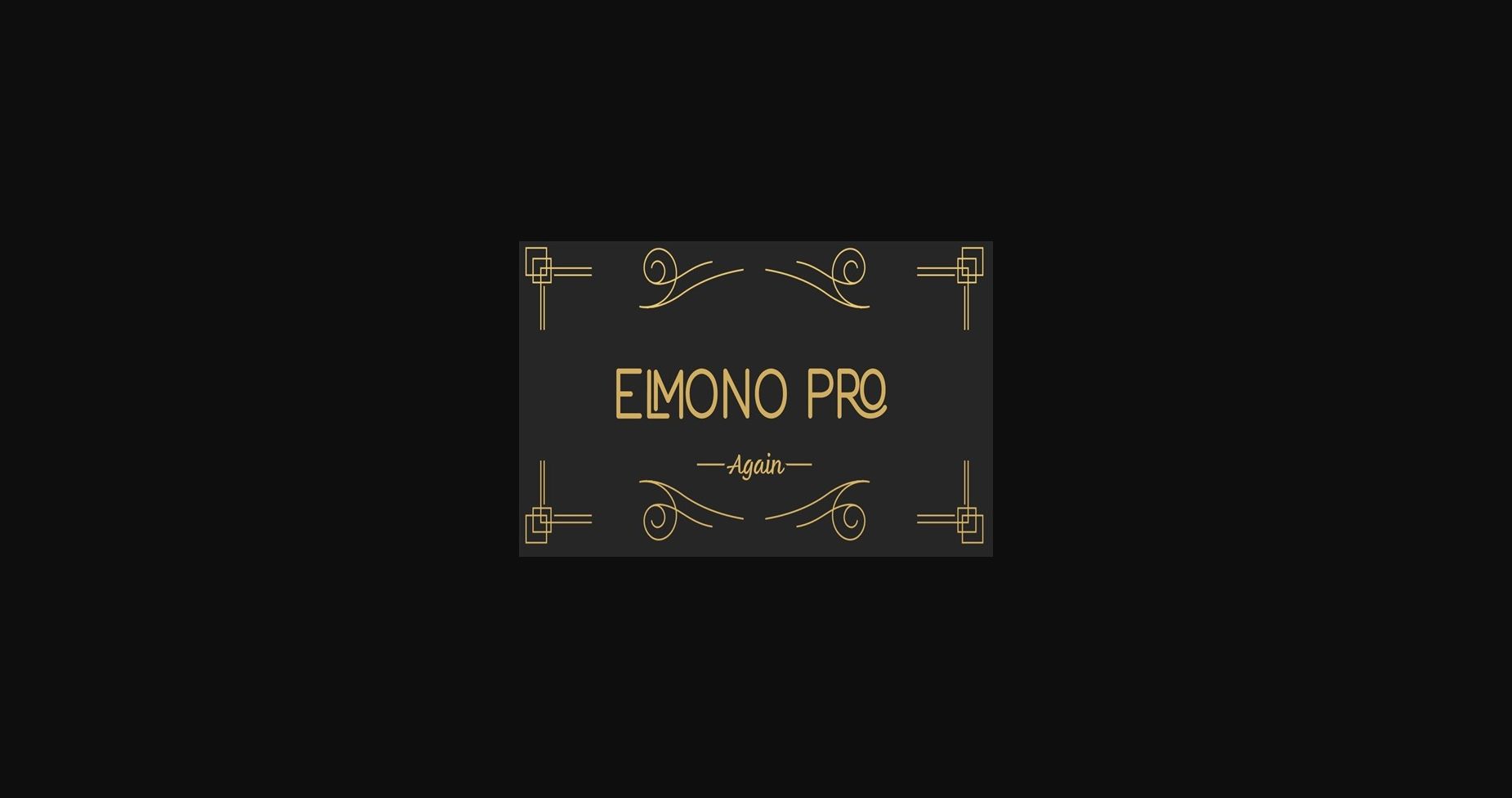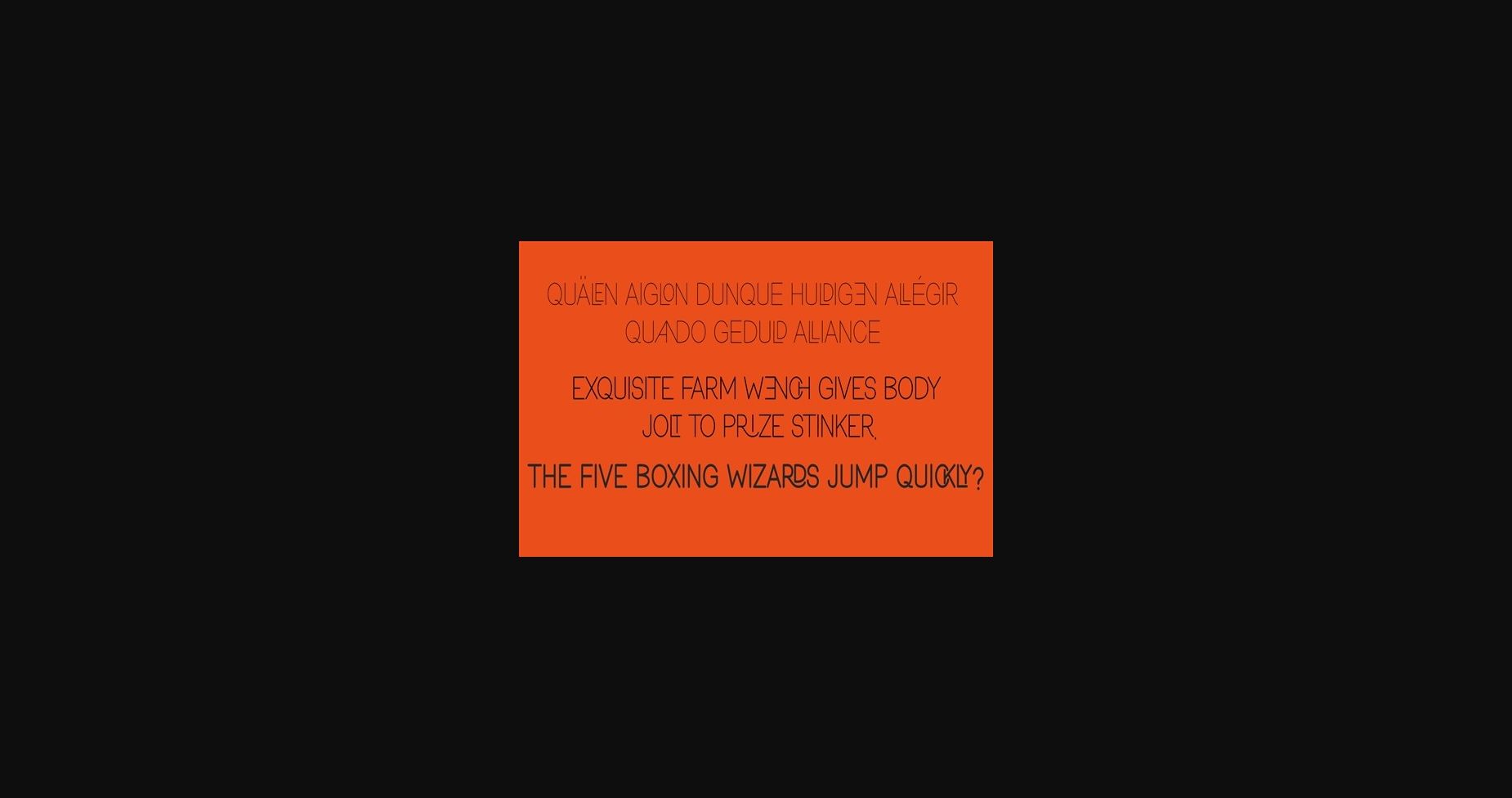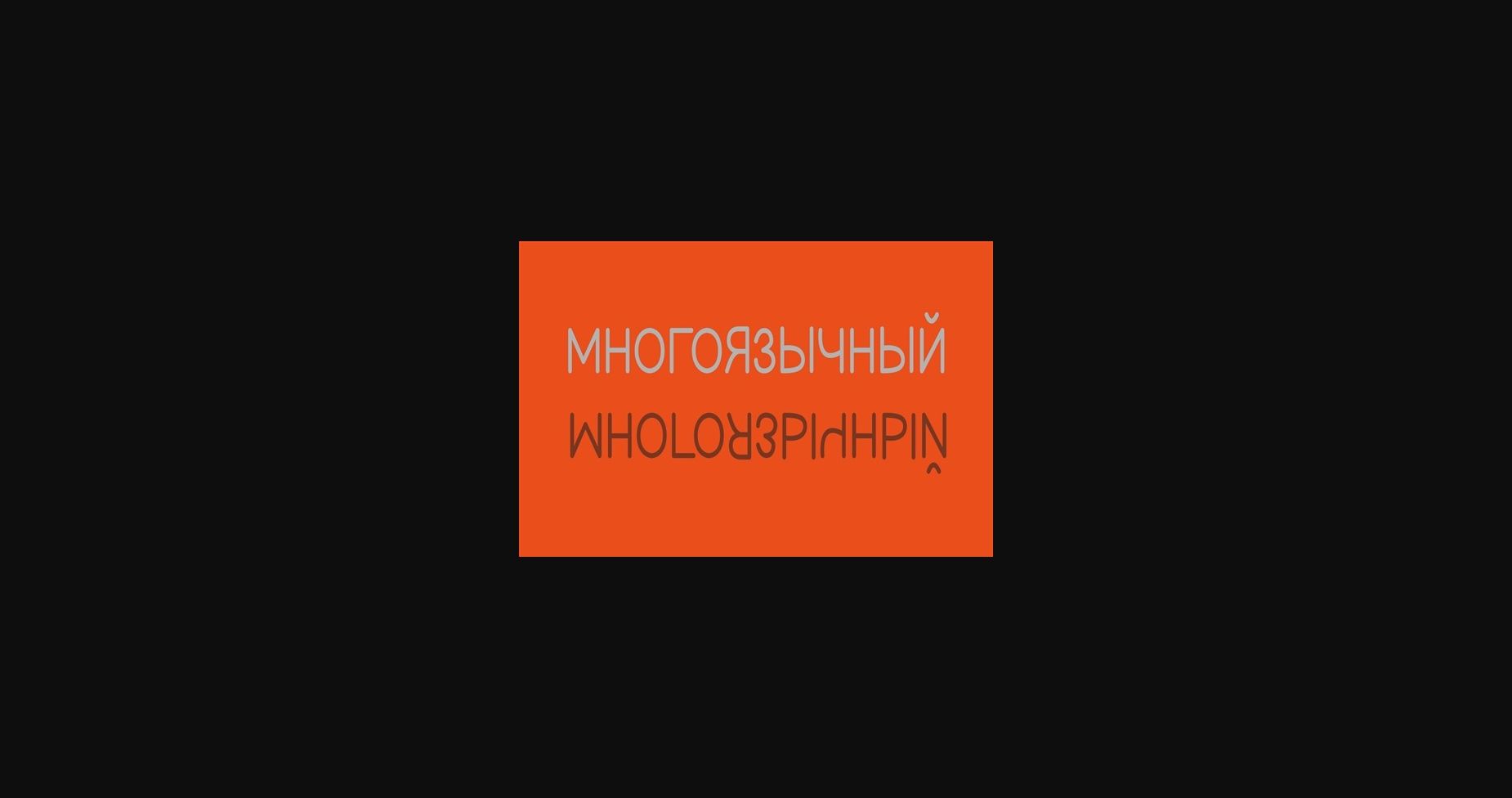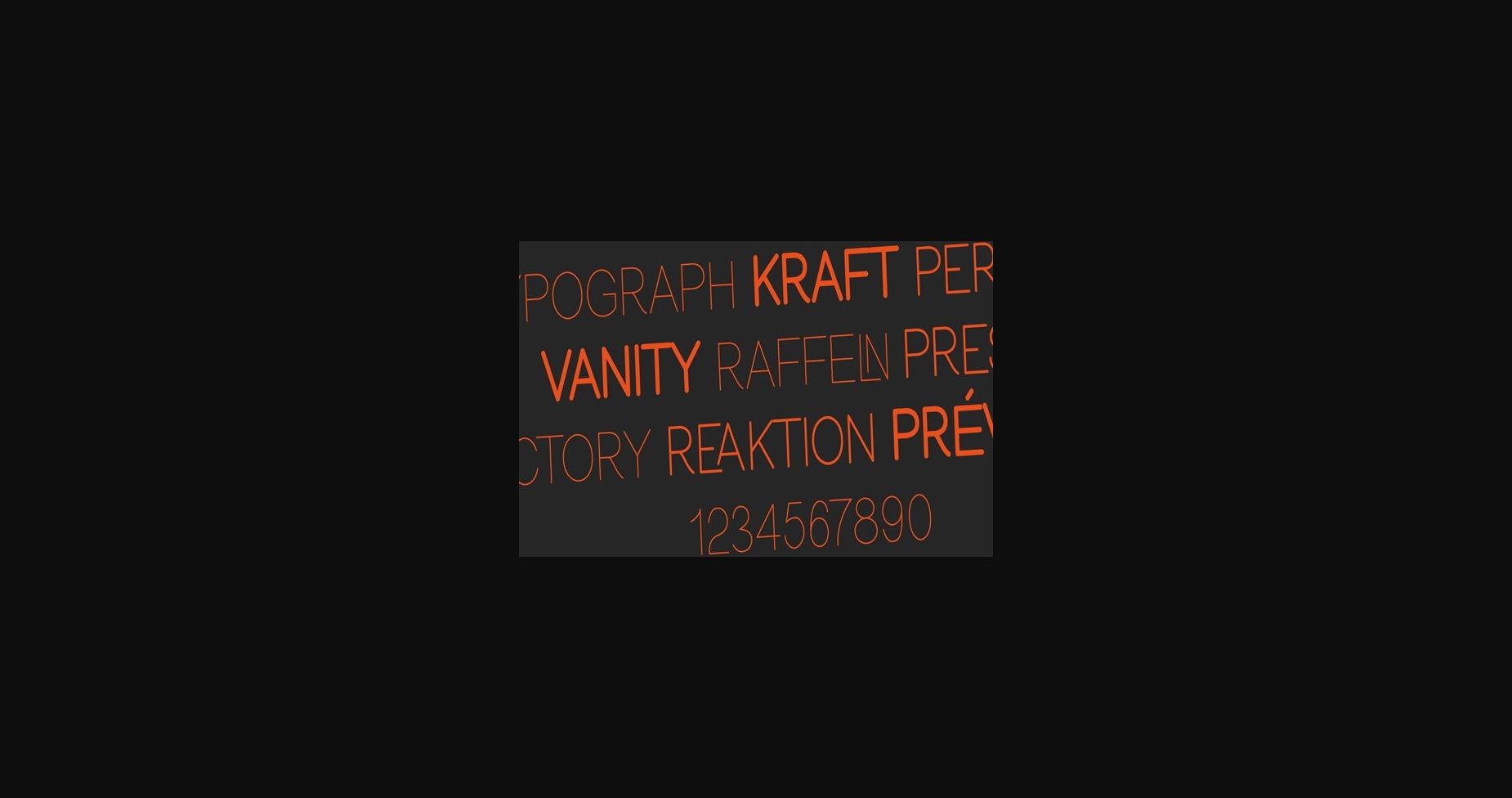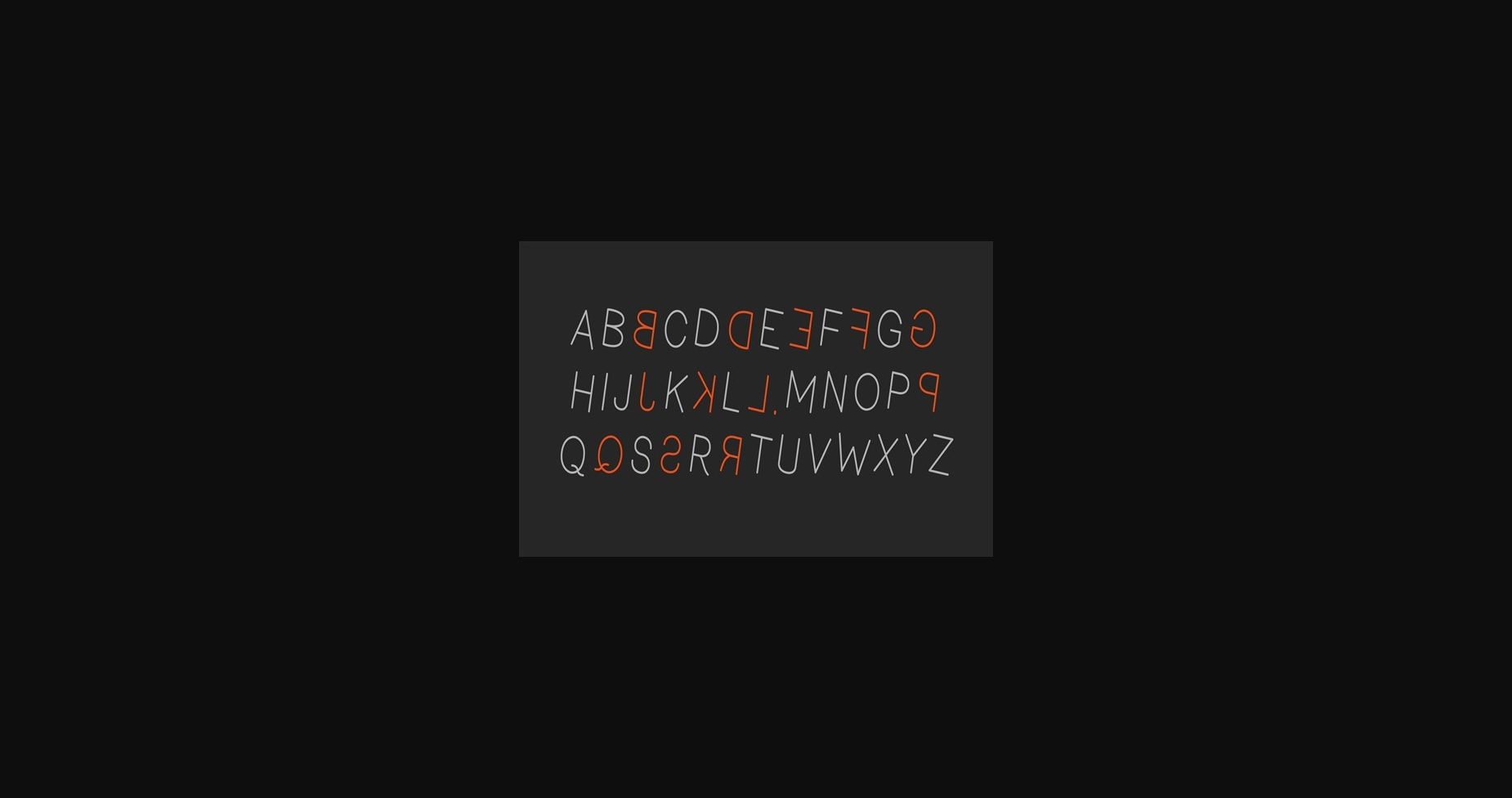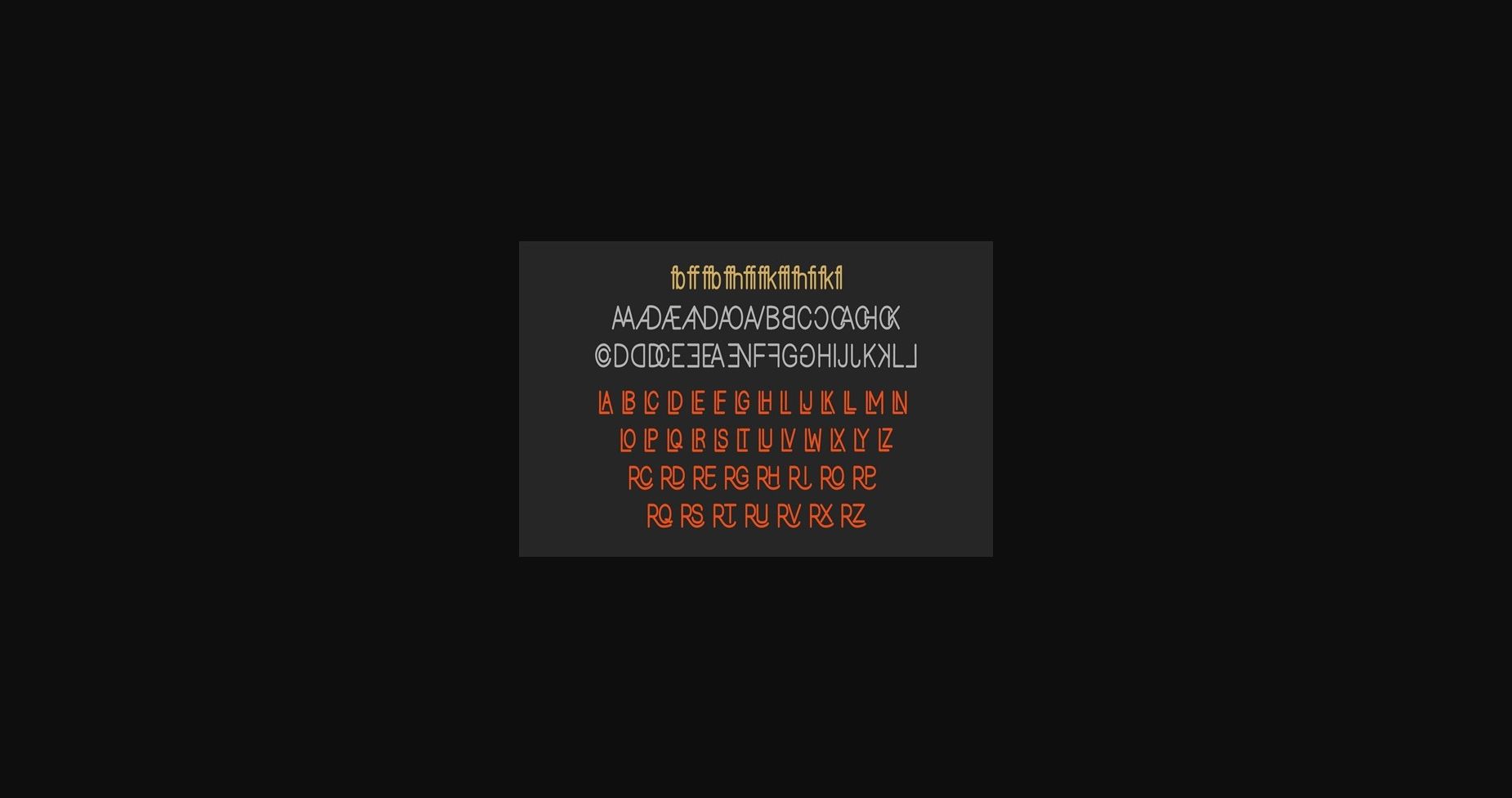
HomeSans Serif FontsElmono Pro Font Sans Serif Fonts Elmono Pro Font FacebookXPinterestWhatsApp 1 of 8 ... Elmono Pro Font Poster 2... Elmono Pro Font Poster 3... Elmono Pro Font Poster 4... Elmono Pro Font Poster 5... Elmono Pro Font Poster 6... Elmono Pro Font Poster 7... Elmono Pro Font Poster 8... About Elmono Pro Font Elmono Pro is a natural and elegant sans serif font. It can easily be matched to an incredibly large set of projects, so add it to your creative ideas and notice how it makes them stand out! DOWNLOAD NOW People also explored Bolognese Font Lovely Forever Font Condell Bio Poster Lhetyan Script Miss Karttiny Font Morghana Font Candy Potato Font Kind Wizard Fu Font Shantika Font 382 0 TagsElmono Pro Font Previous articleGalifex FontNext articleRemhu Font LEAVE A REPLY Cancel reply Comment: Please enter your comment! Name:* Please enter your name here Email:* You have entered an incorrect email address! Please enter your email address here Website: Save my name, email, and website in this browser for the next time I comment. Personal Use Free Wintersoul Personal Use Free Read more about this font Hatia Script Personal Use Free Read more about this font Bally Girl Personal Use Free Read more about this font Round Geometric Personal Use Free Read more about this font BLOG How to Cut Any Font on Cricut: Convert a Font to SVG (Free) Turn any font into a clean SVG so it cuts crisp on Cricut - a quick 3-step workflow using a free font-to-SVG tool. The 10 Best Handwriting Fonts to Add Personality to Your Designs Best Fonts for YouTube Videos: Make Your Thumbnails Stand Out Top 10 Handwritten Fonts That Elevate Your Designs